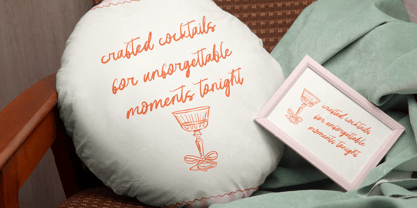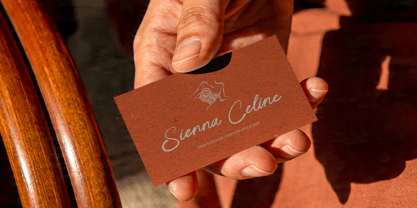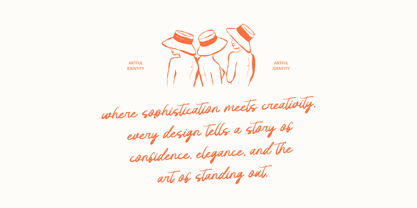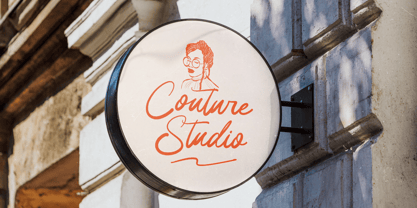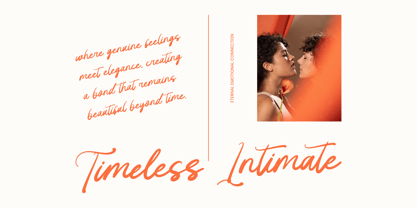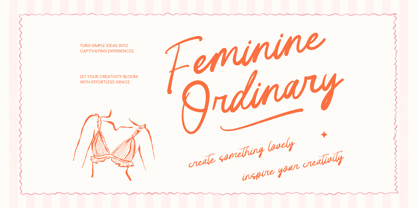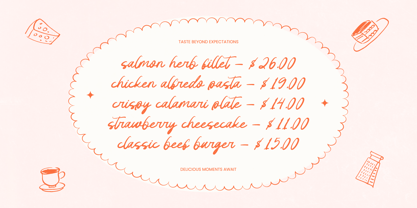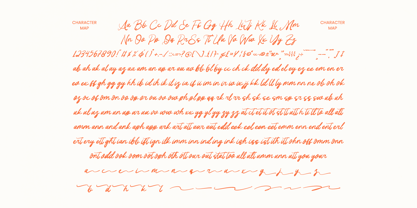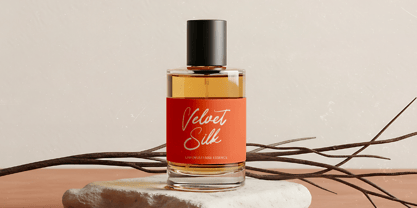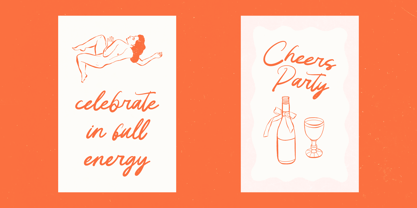
Feminine Ordinary
by Letterena Studios
The Feminine Ordinary Font Family was designed by Heru Utama Putra and published by Letterena Studios. Feminine Ordinary contains 2 styles and family package options. More about this family
Feminine Ordinary - Handwritten Ink Font
Elevate your design projects with the effortless elegance of Feminine Ordinary - Handwritten Ink Font. This typeface captures a refined organic aesthetic that mimics natural ink strokes on paper, blending chic sophistication with an intimate personal touch. The fluid letterforms and artistic flair ensure your typography stands out with a unique visual identity, making it an essential tool for designers seeking a handcrafted feel that resonates with modern audiences.
Experience unparalleled creative freedom through an extensive library of premium typographic features designed for professional creators. Boasting a staggering 183 ligatures, 19 alternates, and 06 swashes, Feminine Ordinary - Handwritten Ink Font offers infinite possibilities for custom typography. These decorative elements allow for seamless transitions between characters, creating a dynamic flow that mirrors genuine calligraphy and brings professional polish to every creative endeavor.